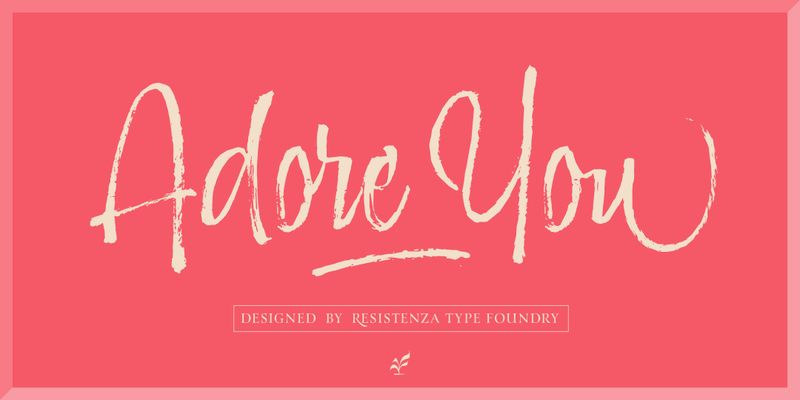
Adore You Font Free Download is a romantic and elegant script typeface that brings a soft, handwritten charm to any design. With its flowing curves, delicate loops, and graceful rhythm, this font is ideal for wedding invitations, love notes, branding for beauty or fashion, greeting cards, and social media graphics that need a personal, heartfelt touch.
Designed to mimic natural handwriting, Adore You combines readability with sophistication. It includes upper and lowercase letters, punctuation, ligatures, and multilingual support, allowing you to create beautiful, expressive layouts with ease.
Whether you're working on a dreamy logo or crafting a stylish Instagram post, Adore You Font Free Download adds emotional warmth and flair to your designs. Download it for personal or test use to explore its full potential. For any commercial projects, please make sure to purchase the correct license. Let this romantic font add a handwritten elegance to your next creation.